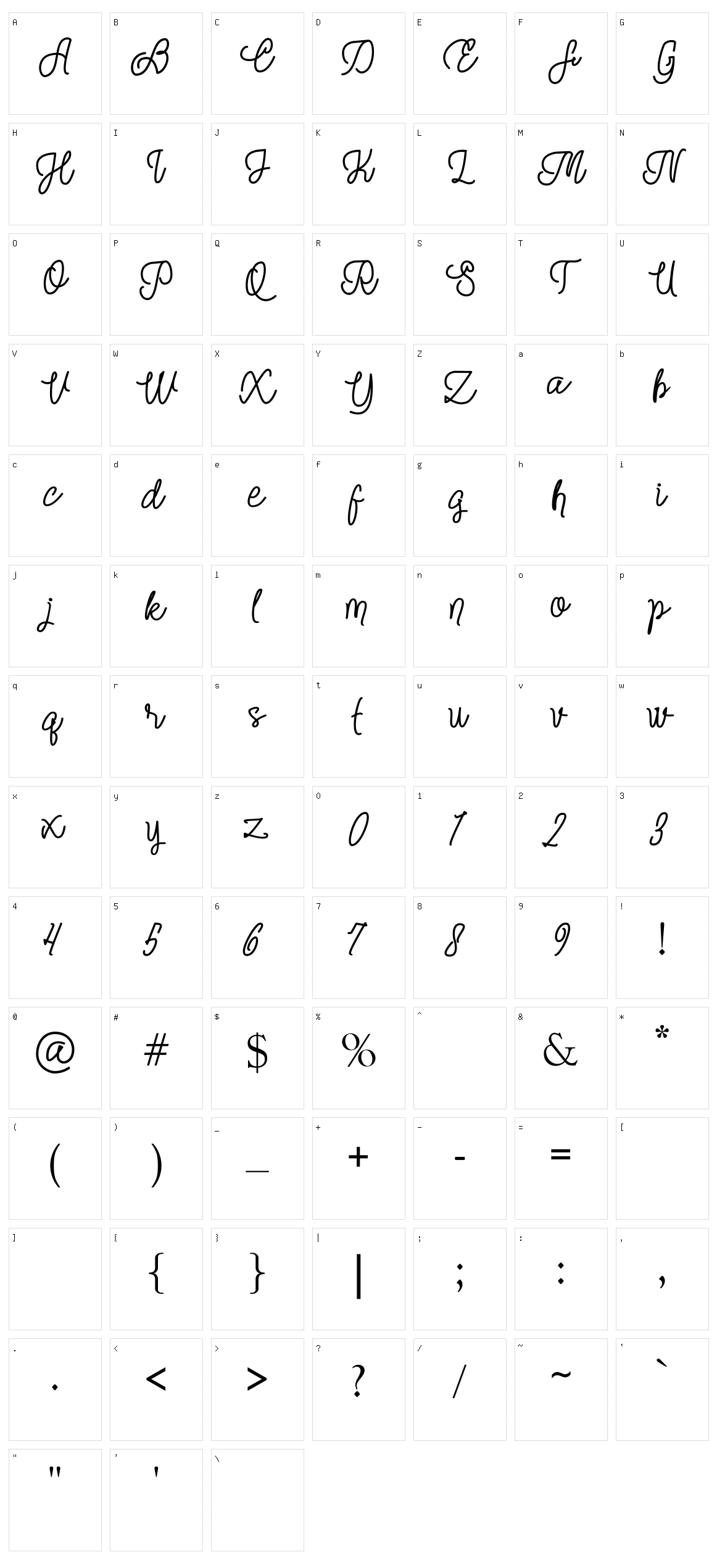
The free font Jitting is carefully designed by Sesa Grafika, showcasing a thoughtful balance of creativity and usability and falls under the Script font style. When you download the ZIP file, it contains only 22.61 KB of font files, making it lightweight and quick to download. Please review the license details below to understand permitted usage and distribution rights. If license information is not available, we recommend using this font for personal projects only or contacting the author directly for commercial usage permissions.